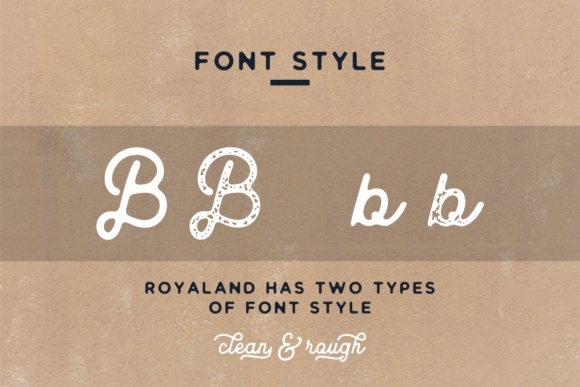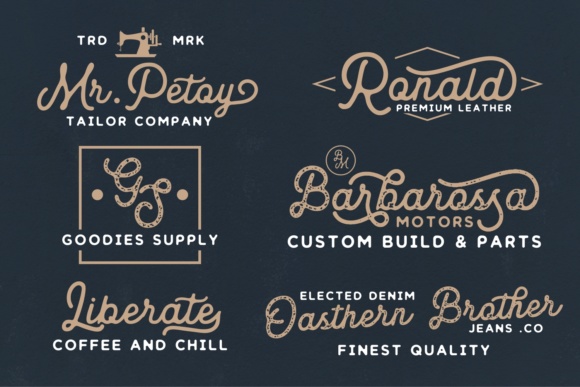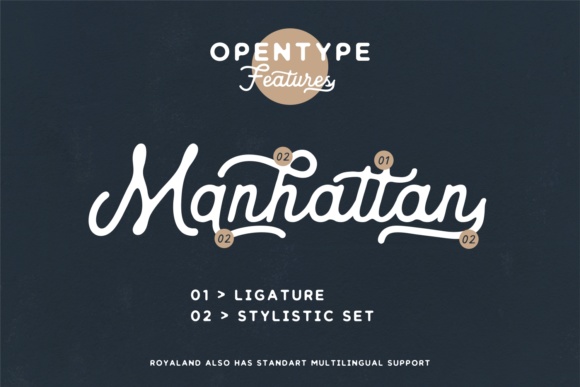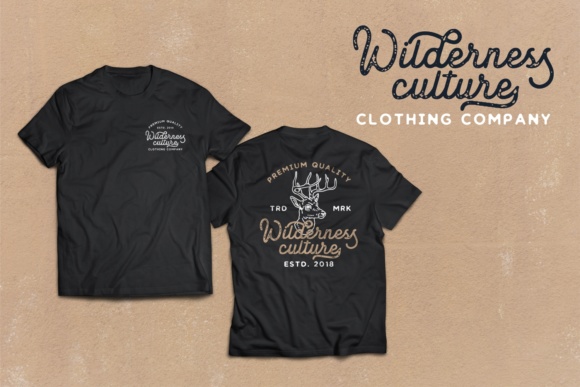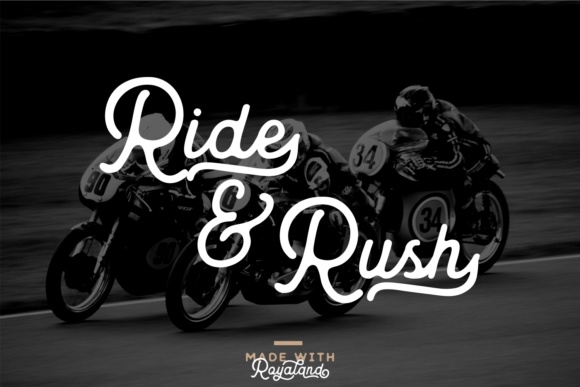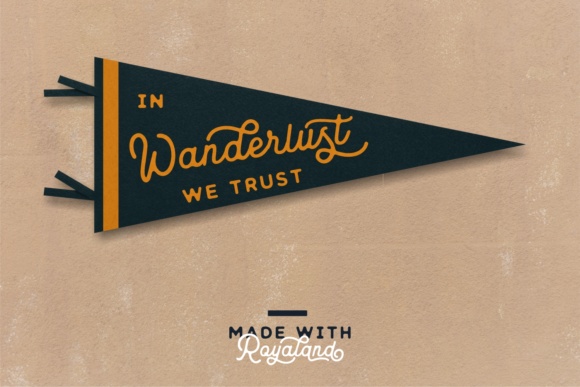
Introduction to Royaland Font
Remember the thrill of rummaging through a vintage motorcycle shop, surrounded by the scent of leather and grease? The sound of revving engines and the feel of worn denim on your thighs? That’s exactly the vibe you’ll get when you incorporate the Royaland Font into your next creative project.
As a designer, you’re always on the lookout for that one special element that sets your work apart from the rest. And trust us, the Royaland Font is that gem. This high-quality, vintage-inspired font set is perfect for adding a touch of rugged charm to your designs, whether you’re working on a free download or a high-end commercial project.
Key Features of Royaland Font
- Unique, elegant design style that sets it apart from other fonts in its category.
Honest Review: Royaland Font
As a designer, I’m always on the lookout for high-quality design resources to enhance my creative projects. Recently, I had the chance to test out the Royaland Font, and I must say it’s been a game-changer.
What works well: ✨ The Royaland Font is incredibly versatile, making it perfect for a wide range of design applications. I’ve used it for everything from logo designs to brochures, and it always looks stunning. The font is also highly customizable, allowing me to adjust the size, color, and style to fit my project’s unique needs.
Overall, I’m thoroughly impressed with the Royaland Font. It’s a design resource that’s definitely worth checking out, especially if you’re looking for a high-quality font for your next project.
⚠️ One thing to note is that the font may not be suitable for all design applications, especially those requiring a more formal or traditional look. However, for most creative projects, the Royaland Font is an excellent choice.
To get the most out of the Royaland Font, use it in creative projects with a transparent background. This will allow you to layer the font with other design elements and create a unique look. You can also experiment with different font sizes, colors, and styles to enhance the overall design.